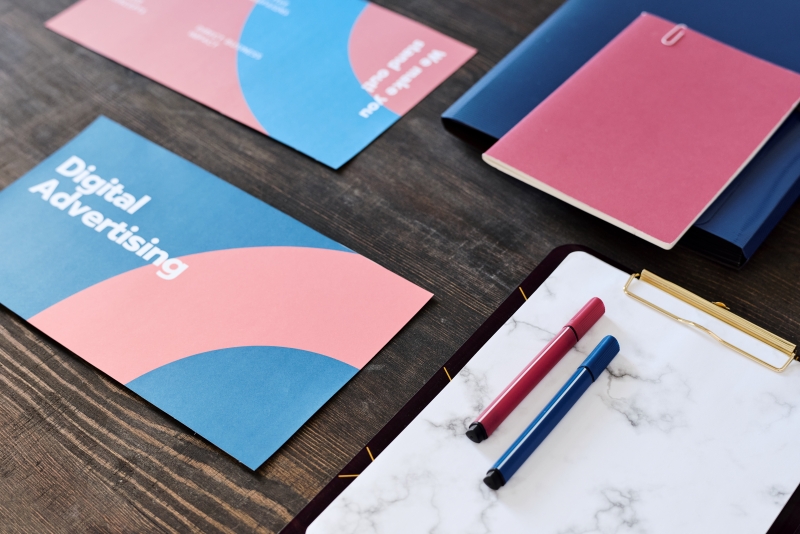
In the visual design world, typography plays a role more important than just arranging texts and making them readable. The font types you use can affect the nuance, character, and appeal of a design. That’s why font selection is one of the most important aspects in creating effective visual communication. Amidst various visual elements, typography often becomes the “visual voice” that helps design talk even before the audience reads the content.
A bold display font is one of the typography styles designed to create a strong, striking, and recognizable visual appearance. The thick-weight letterforms provide a certain appeal thanks to their ability to create a contrast, build a focal point, and make text the main element in strengthening the design message.
With a strong visual character, the bold display font style becomes more than just font choices. This font type can attract attention, build perception, and strengthen the visual communication in a design.
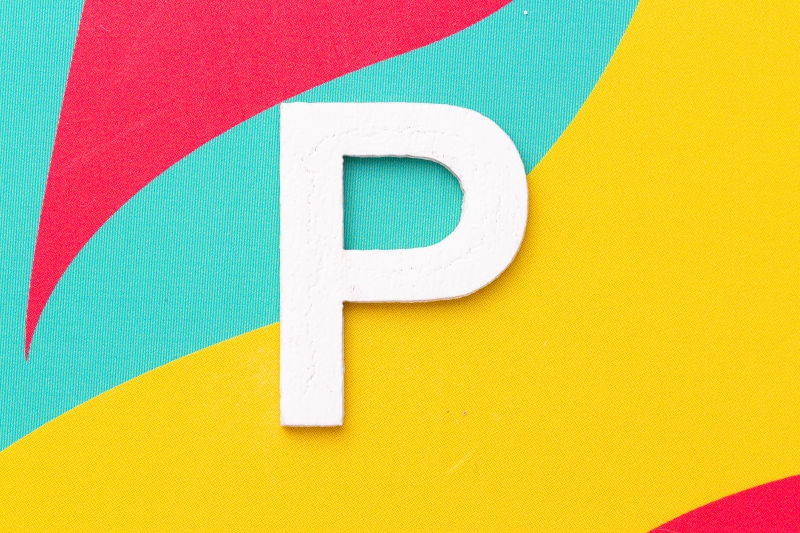
A bold display font is a typeface designed to look dominant and become the focal point of a design. Unlike other fonts created for long body texts, this font type is more commonly used as an element highlighting the main information through a strong and easily seen appearance.
Because of its capacity to convey visual emphasis, a bold display font is frequently used in designs that require a typography element that can capture attention immediately. This font type’s visual character makes it one of the most popular choices for modern projects.
Bold display fonts have several characteristics that make them easily recognizable and distinct compared to other typography. Those characteristics not only affect the visual but also determine how the font interacts with other design elements.
The thickness of the letter becomes the most striking characteristic of the bold display font. Thicker font weight makes each character look more dominant so that it can visually appeal to the audience. Furthermore, the thickness helps create stronger emphasis on information. The thickness also enhances the emphasis on crucial information that requires highlighting.
This font type commonly has a strong letter structure with clear, distinctive shapes. Some fonts are designed with distinctive details to provide them a certain visual identity. This character makes the text not only recognizable but also impressive to the audience.
Unlike fonts used for long texts, a bold display font is designed to stand out in large-sized media. The letter proportions and visual details of this font make it ideal to be the main element of design. As a result, designers can maintain visual power without sacrificing readability.
There are many unique bold display fonts, from modern to retro and experimental. The uniqueness makes it possible for this font to deliver a certain character and strengthen the visual identity of a design. That’s why the selection of the bold display font often becomes the most important part in building the desired impression.
A bold display font is appealing because of its visual domination that is stronger than other types of typography. Their solid and striking letter characters make the information easily seen in a design composition. This ability helps the audience understand the important message more quickly while simultaneously creating a clearer visual focus.
Besides that, bold display fonts also play an important role in creating an effective visual hierarchy. Using it in a title or main element helps differentiate important information from other supporting elements, ensuring the content becomes more structured. With high flexibility and a clearer information delivery, this font type allows for increased effectiveness of visual communication in various design needs.
In addition to being able to attract attention, bold display fonts can also create a strong visual impression for the audience. The bold and dominant letter characters often create an impression of confidence, bravery, and professionalism. Therefore, many designers use this type of typography to strengthen the visual identity while also emphasizing the design’s main message.
The visual impression of a bold display font can be different depending on the shapes and the styles. The simpler and neater fonts generally present a modern and professional impression. Meanwhile, the more unique and expressive ones tend to be creative, dynamic, and characterful. That variation allows this type of font to support various design concepts while also strengthening its visual character.
The ability to build visual character makes bold display fonts more than just typographic elements. The proper use of fonts can help strengthen the design atmosphere and create a more memorable impression for the audience.
Although this font type has a strong visual appeal, you should tailor its use to the design’s purpose and needs. The proper application can help maximize its function as an element that attracts attention without sacrificing the readability or the visual balance.
To conclude, the effectiveness of bold display fonts relies not only on the striking appearance but also in the ability to deliver messages in a clearer and more directed manner. The strong visual character also makes this font capable of creating a focal point while simultaneously strengthening the design identity.
The proper use and selection of fonts will have a greater impact on the overall design outcome. Therefore, continue to explore various references of bold display fonts and study their characteristics so that you can choose the typography that best suits your design needs.